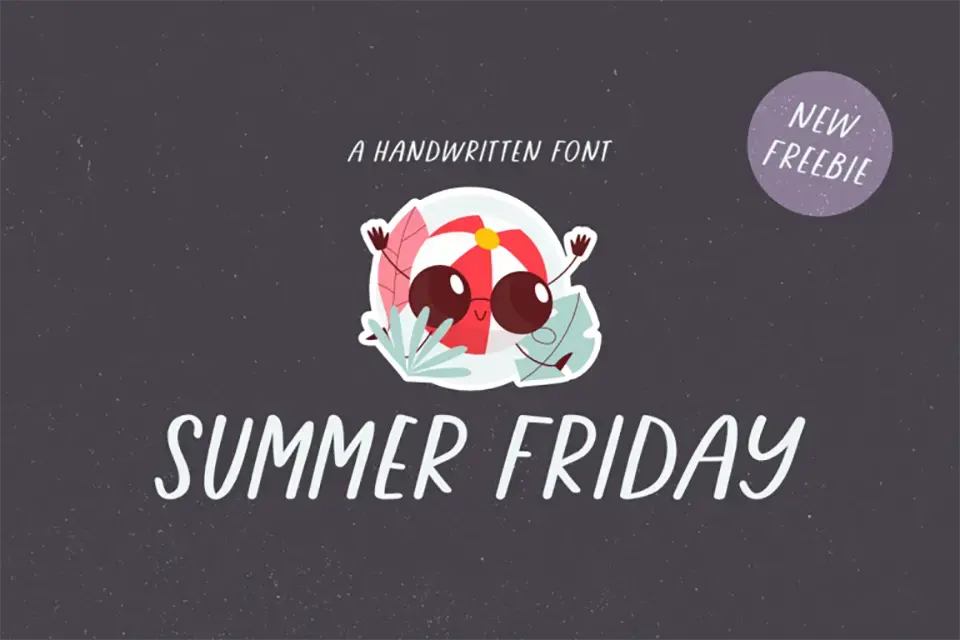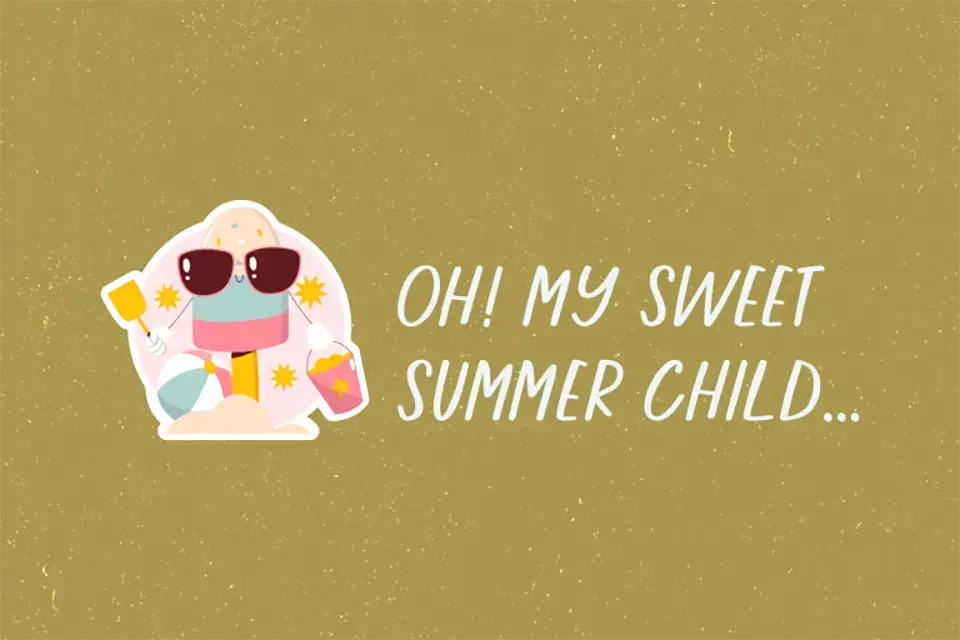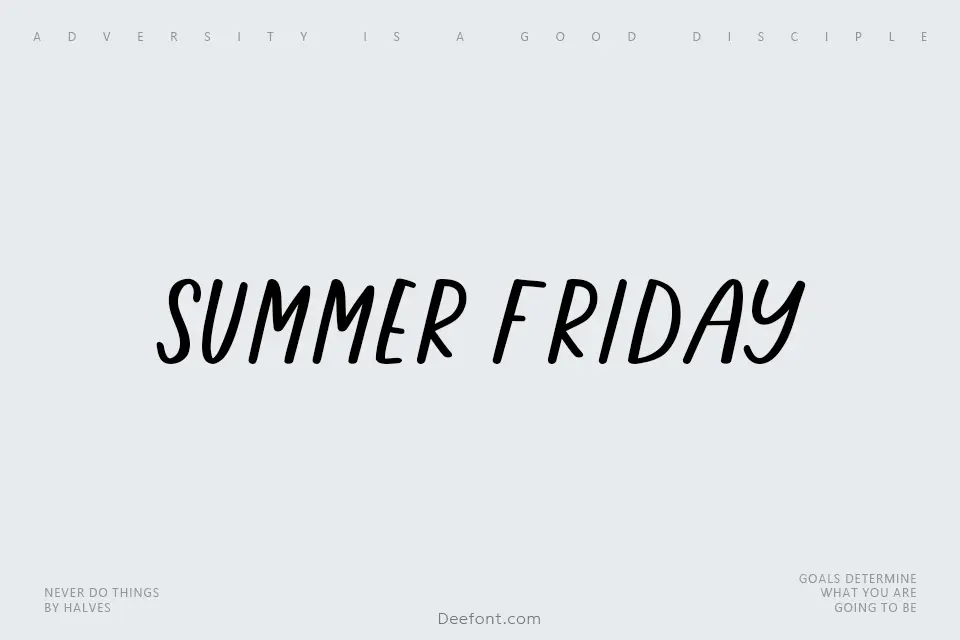
Summer Friday Font
Summer Friday Font is a vibrant handwritten typeface designed with expressive all-caps letterforms that radiate a relaxed, summery aesthetic ideal for creative applications. The font's casual brush-like strokes and friendly character make it perfect for greeting cards, party invitations, quote designs, merchandise branding, poster displays, and festive event promotion materials. With its playful personality and contemporary handwriting style, Summer Friday brings warmth and approachability to any design project requiring uplifting, informal typography that captures the carefree spirit of weekend creativity.